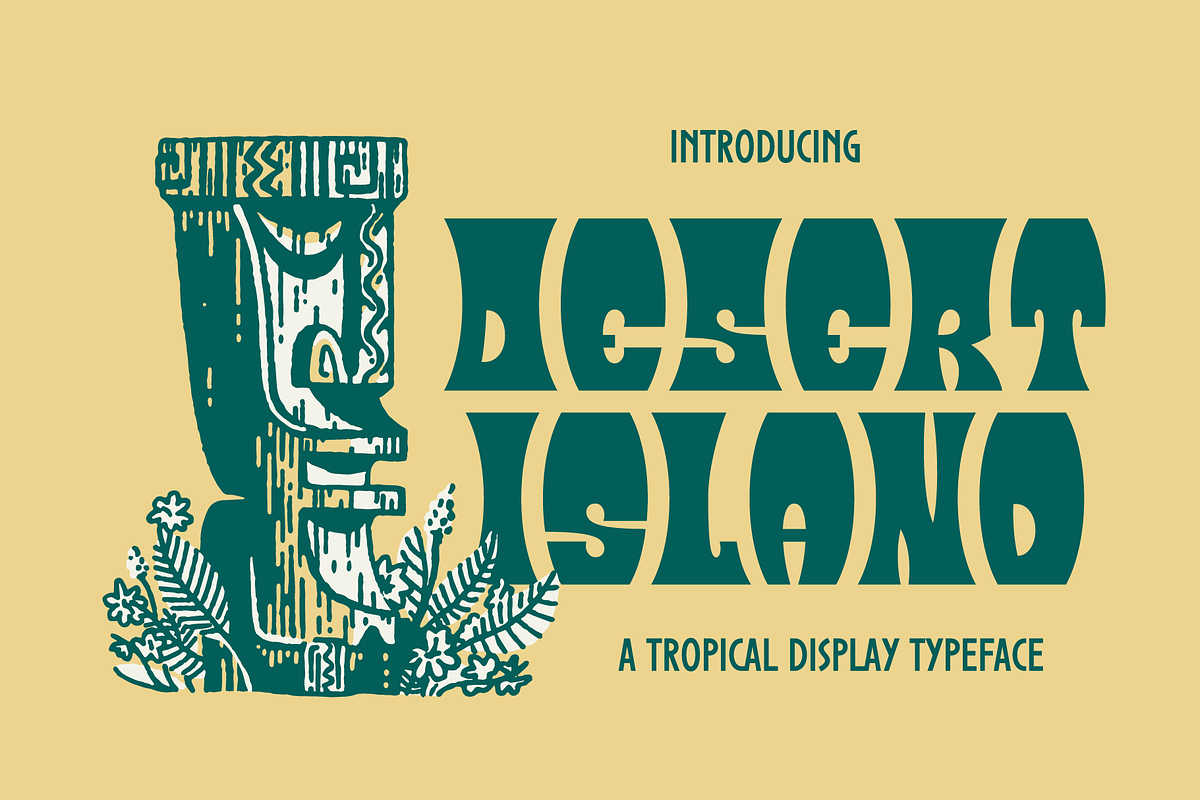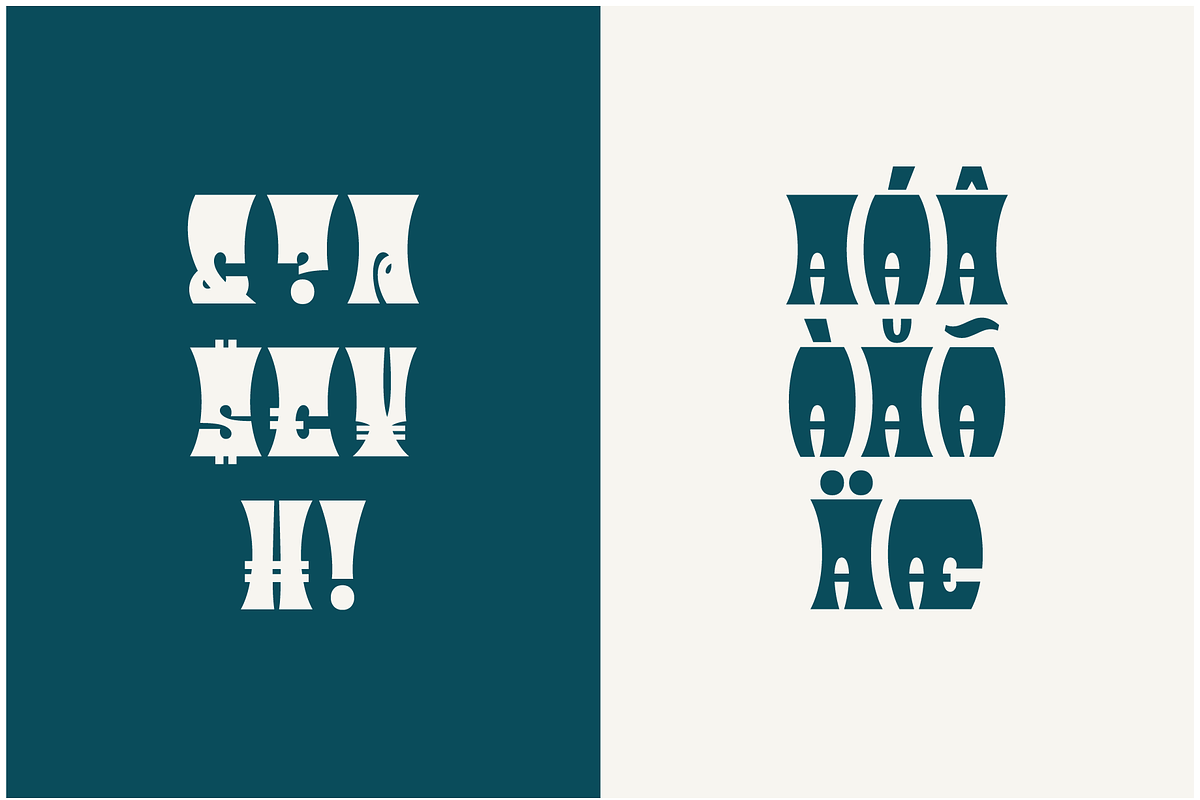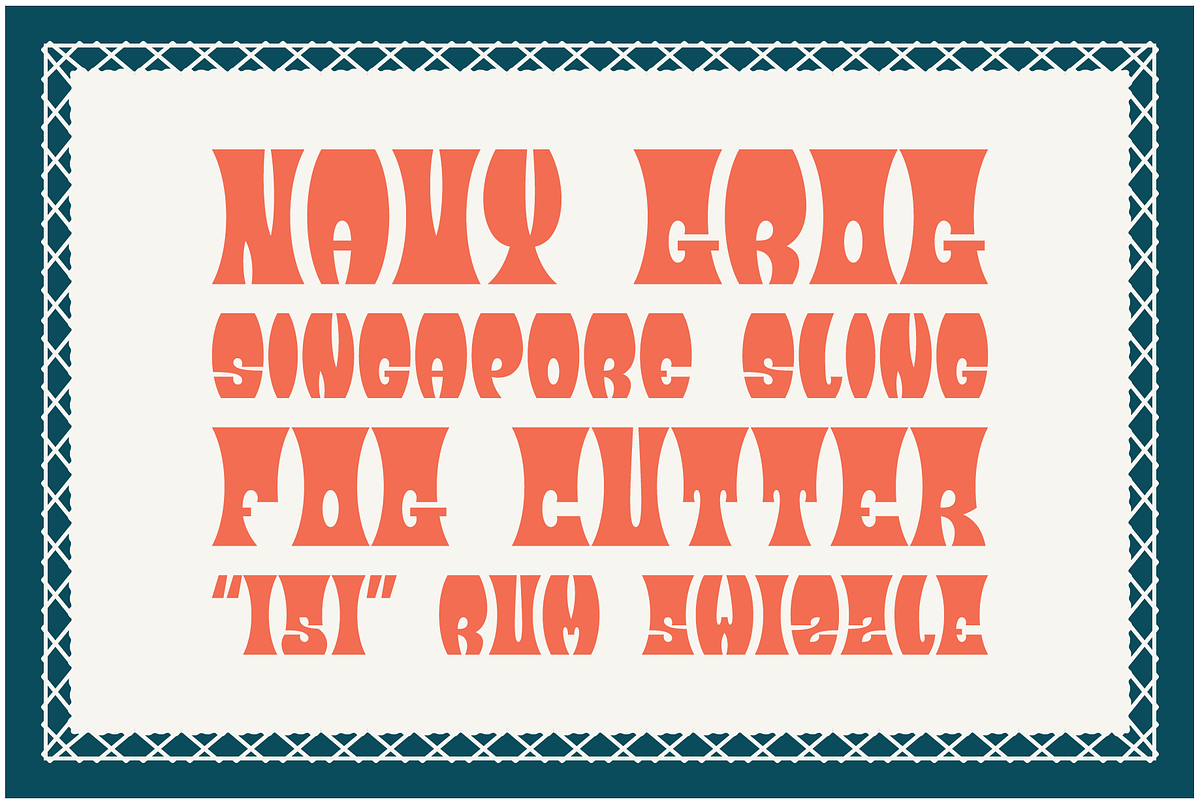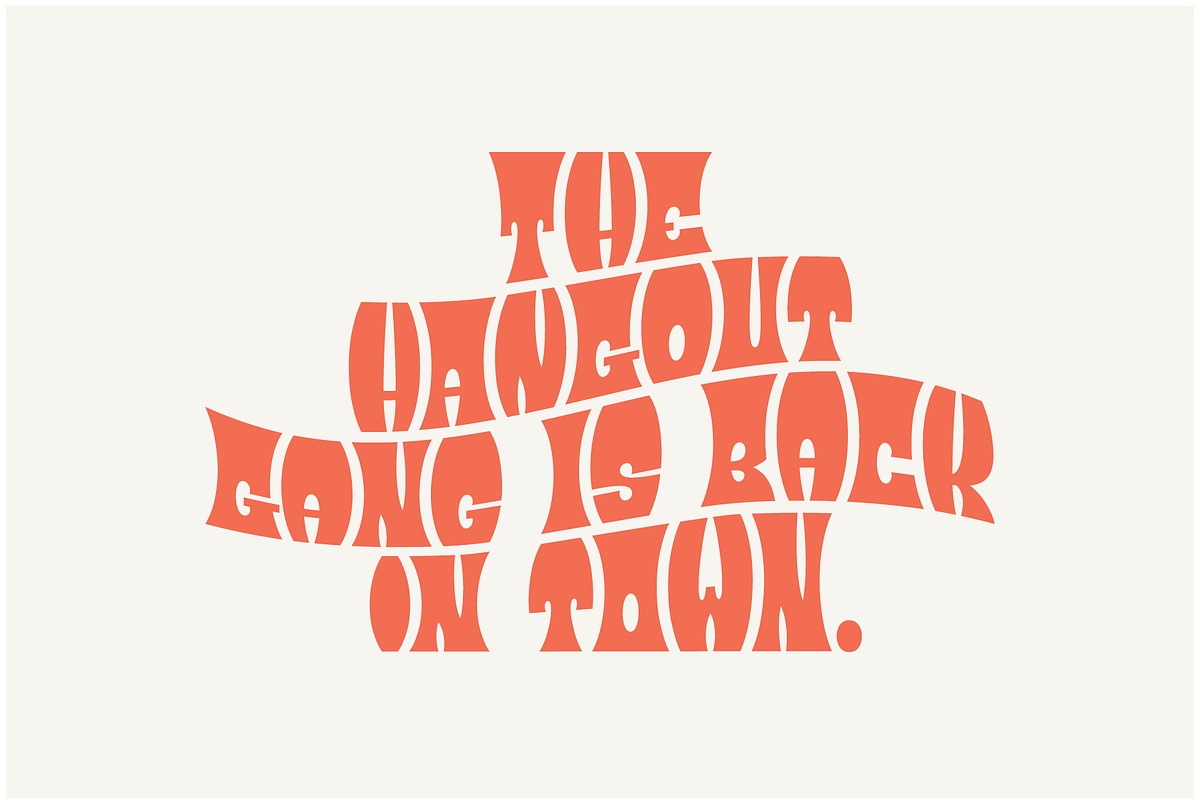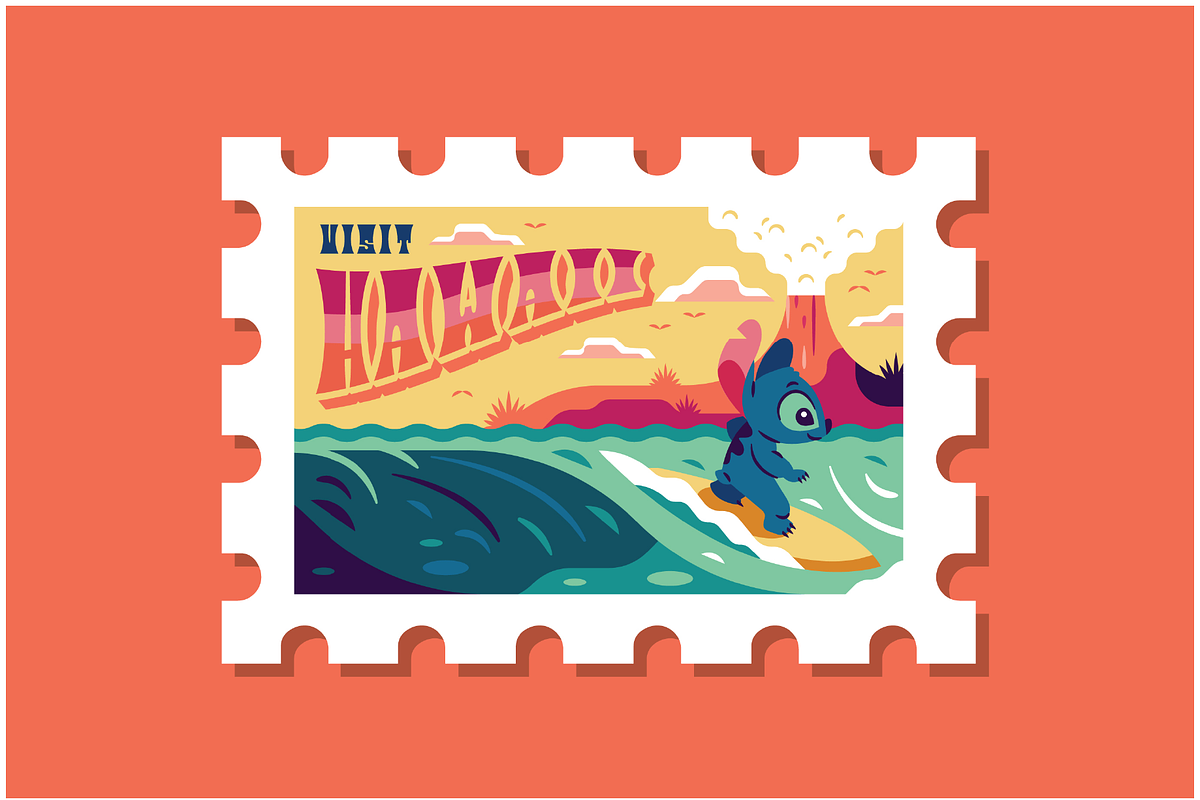
Desert Island
Take a trip to a remote tropical island with the Desert Island typeface. This display typeface is great for headlines and is sure to add a touch of island mystique to your work. The uppercase set is concave and the lowercase set is convex. Alternate each letter to create type that fits perfectly together or use all uppers or all lowers for unique lettering. It is 4 fonts in 1!
- The uppercase set is concave and the lowercase set is convex.
- Alternate each letter to create type that fits perfectly together or use all uppers or all lowers for unique lettering.